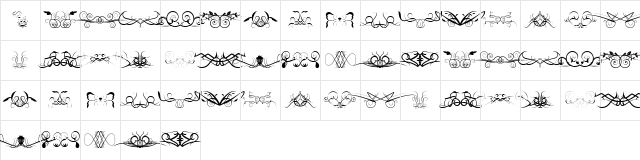
Ornaments soul Regular
Foundry: dcoxy medina gregory
Designer: dcoxy medina gregory
Design Context for Ornaments soul
Ornaments soul is built around its visual character rather than neutral utility - its distinctive forms are designed to make an impression at display sizes.
Font Pairing: Pair with a clean neutral sans-serif for body copy to let Ornaments soul's character lead without overwhelming the composition.
Pro Tip: Use Ornaments soul exclusively at display sizes - it was designed to be seen, not read at length. Let a neutral companion handle body copy.